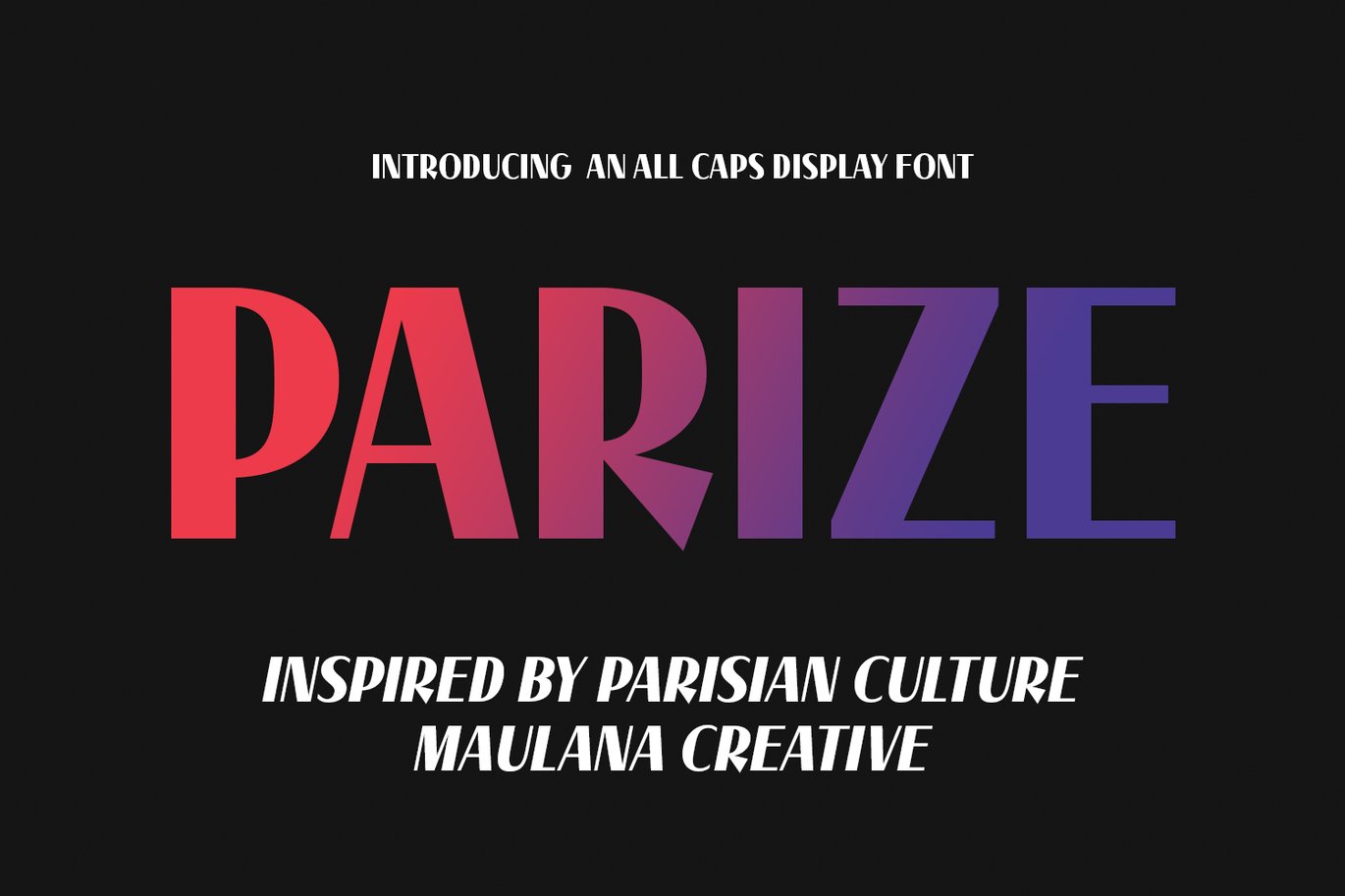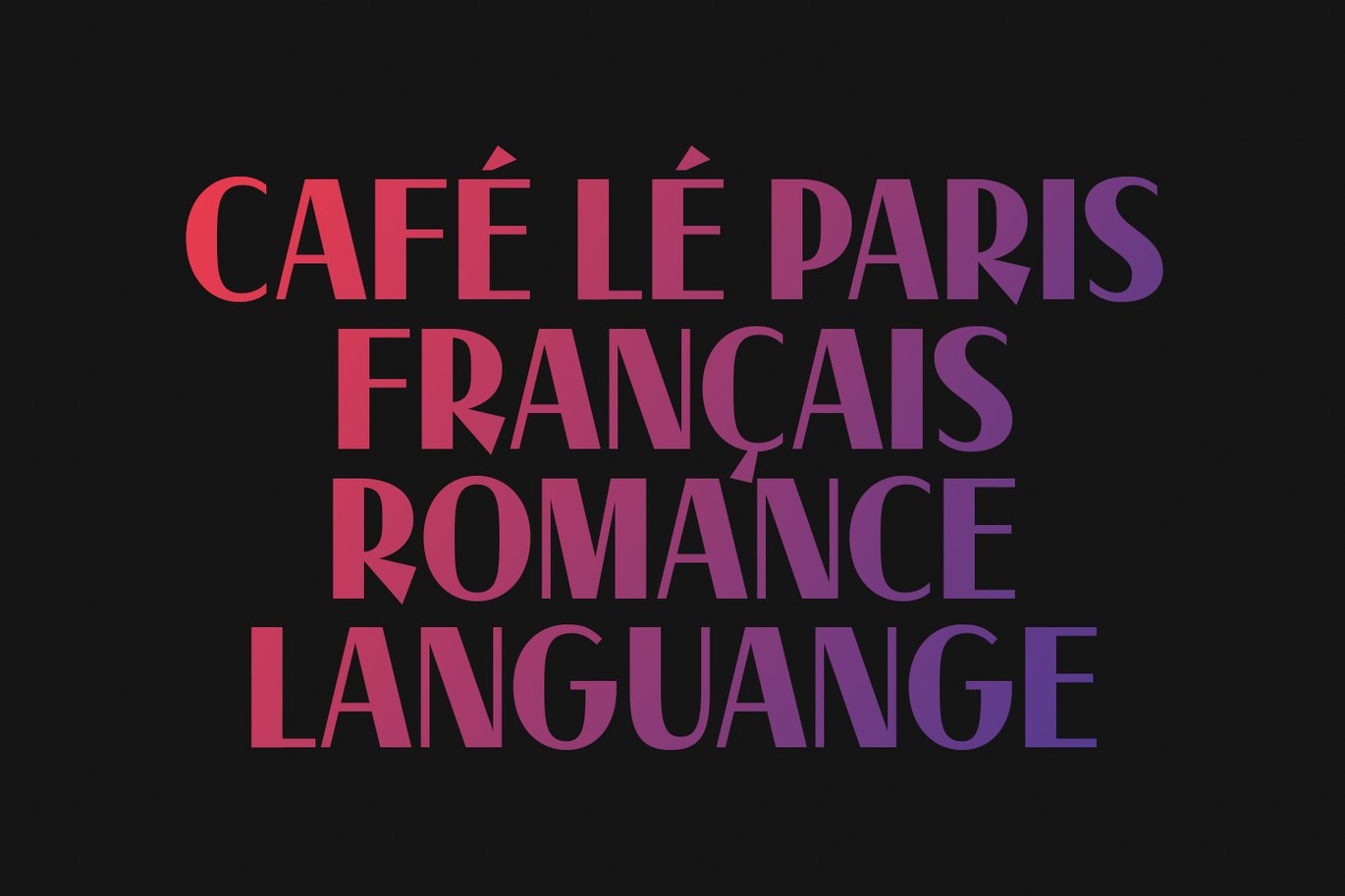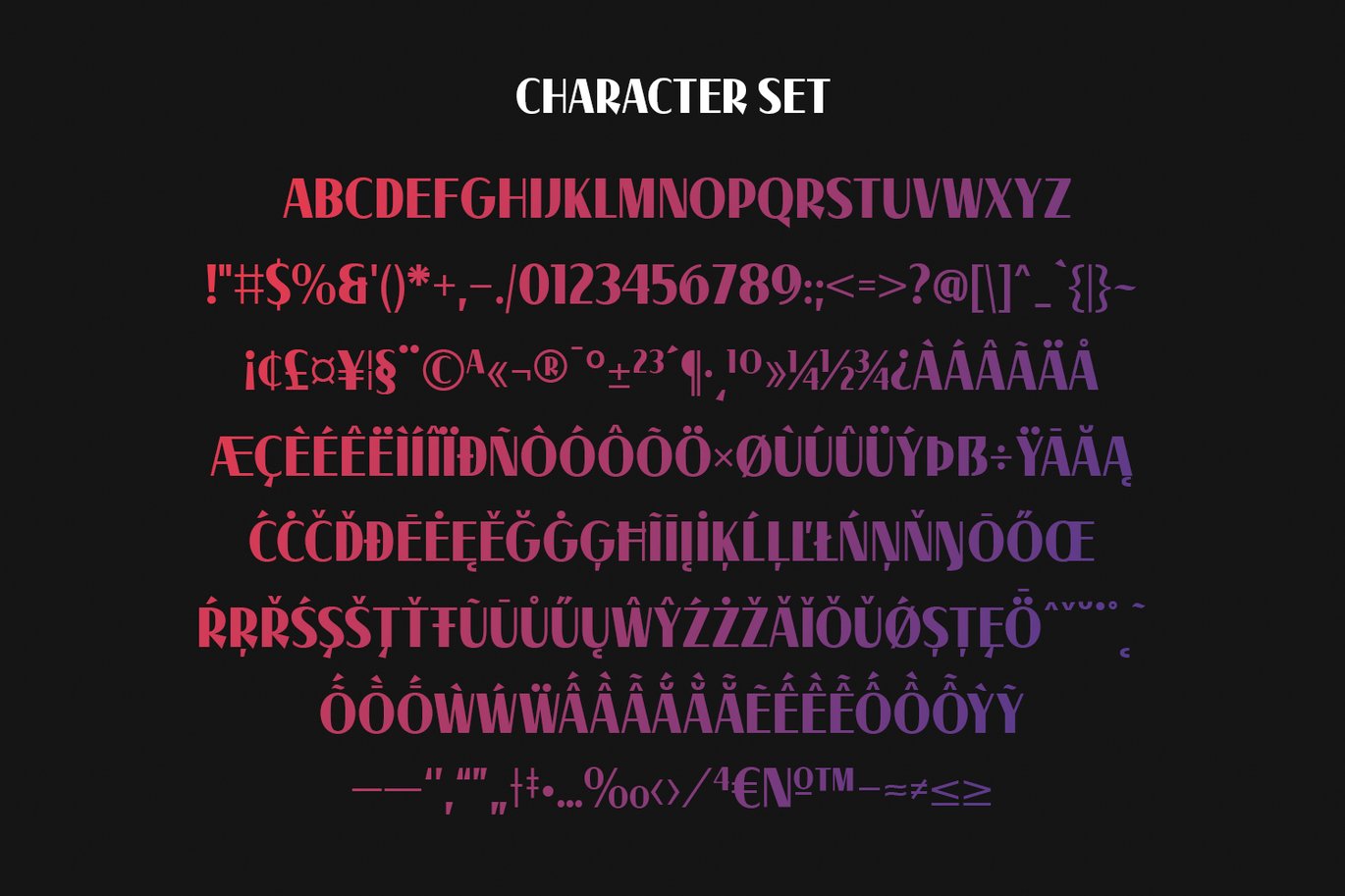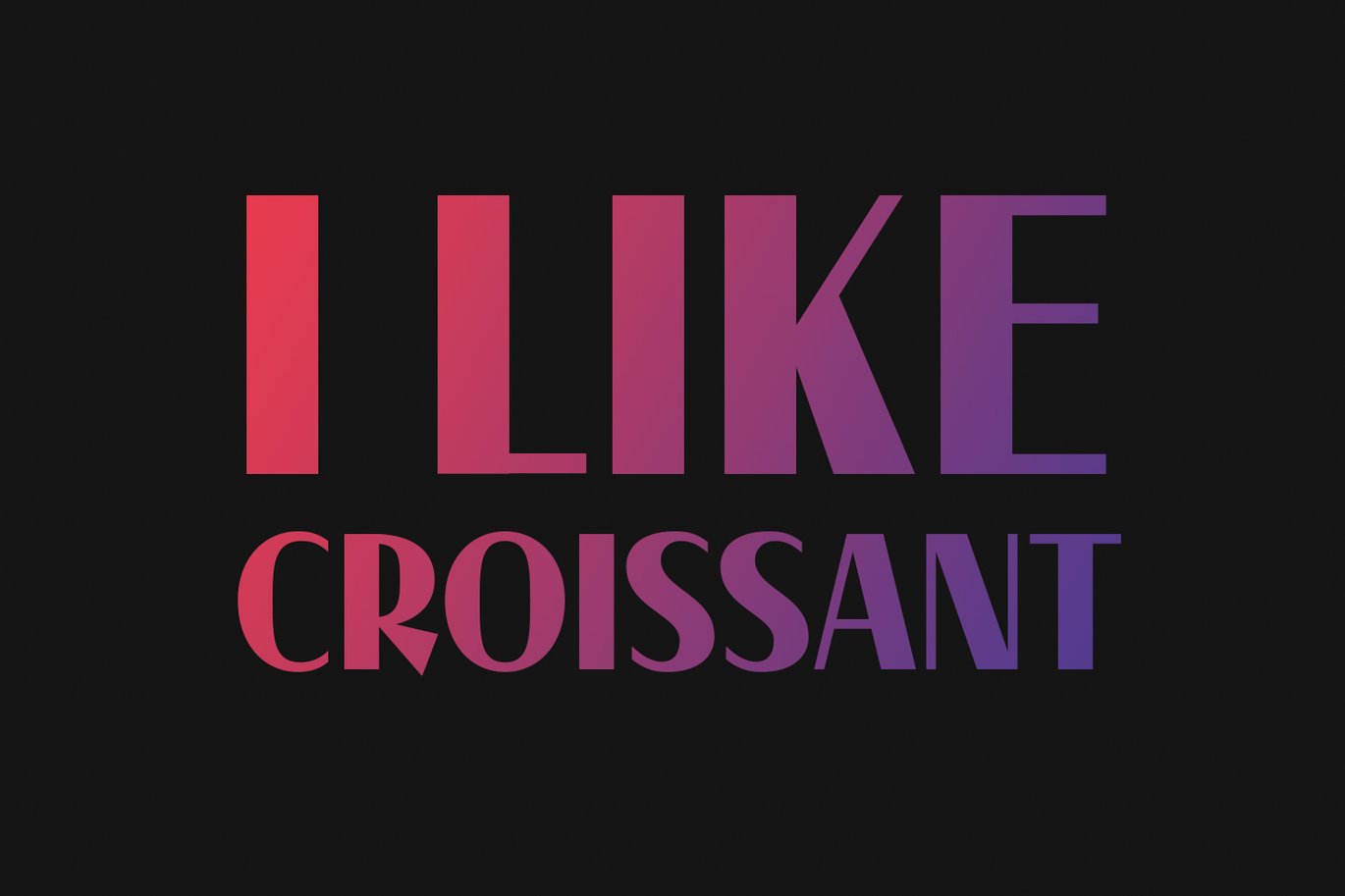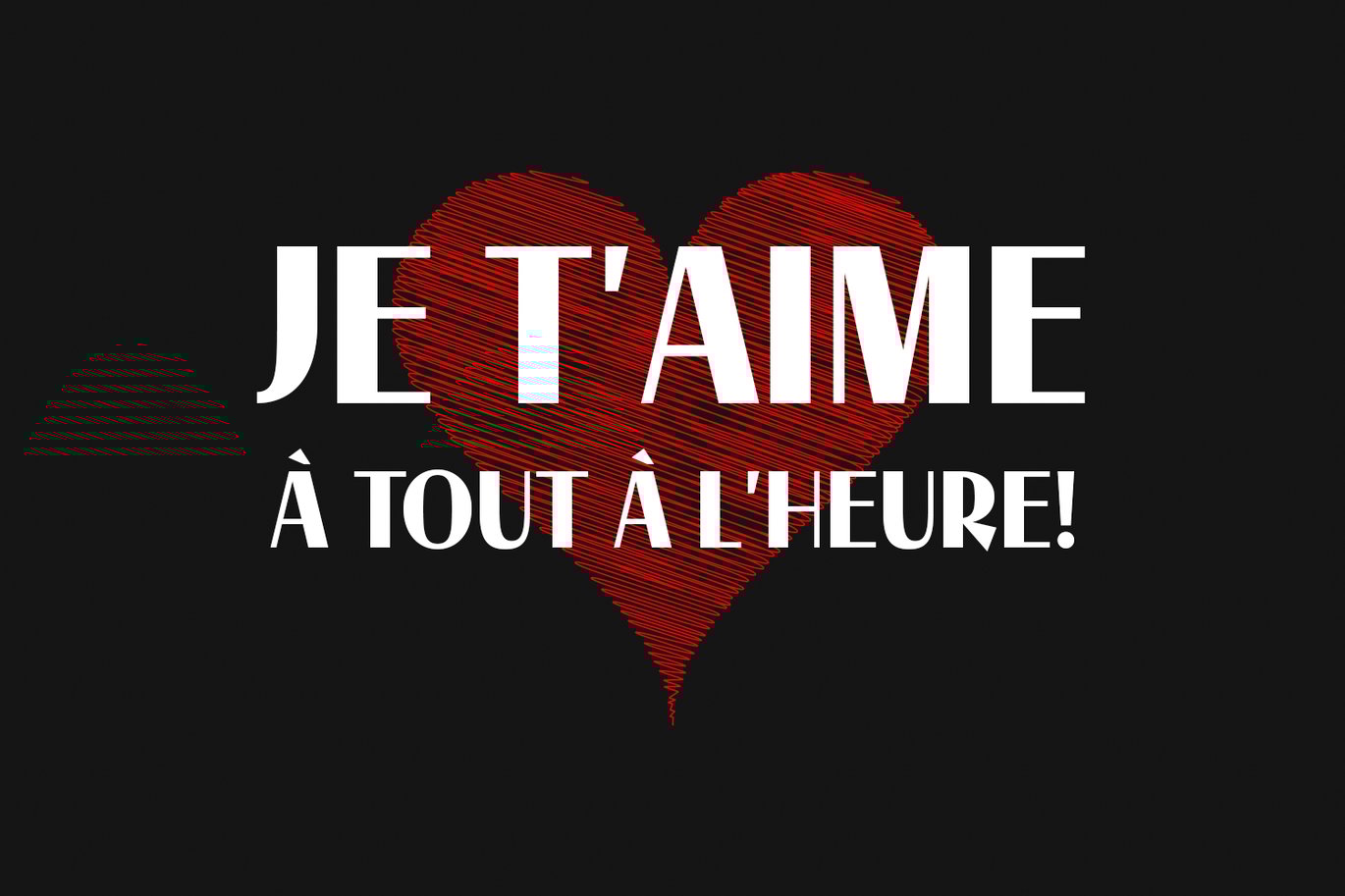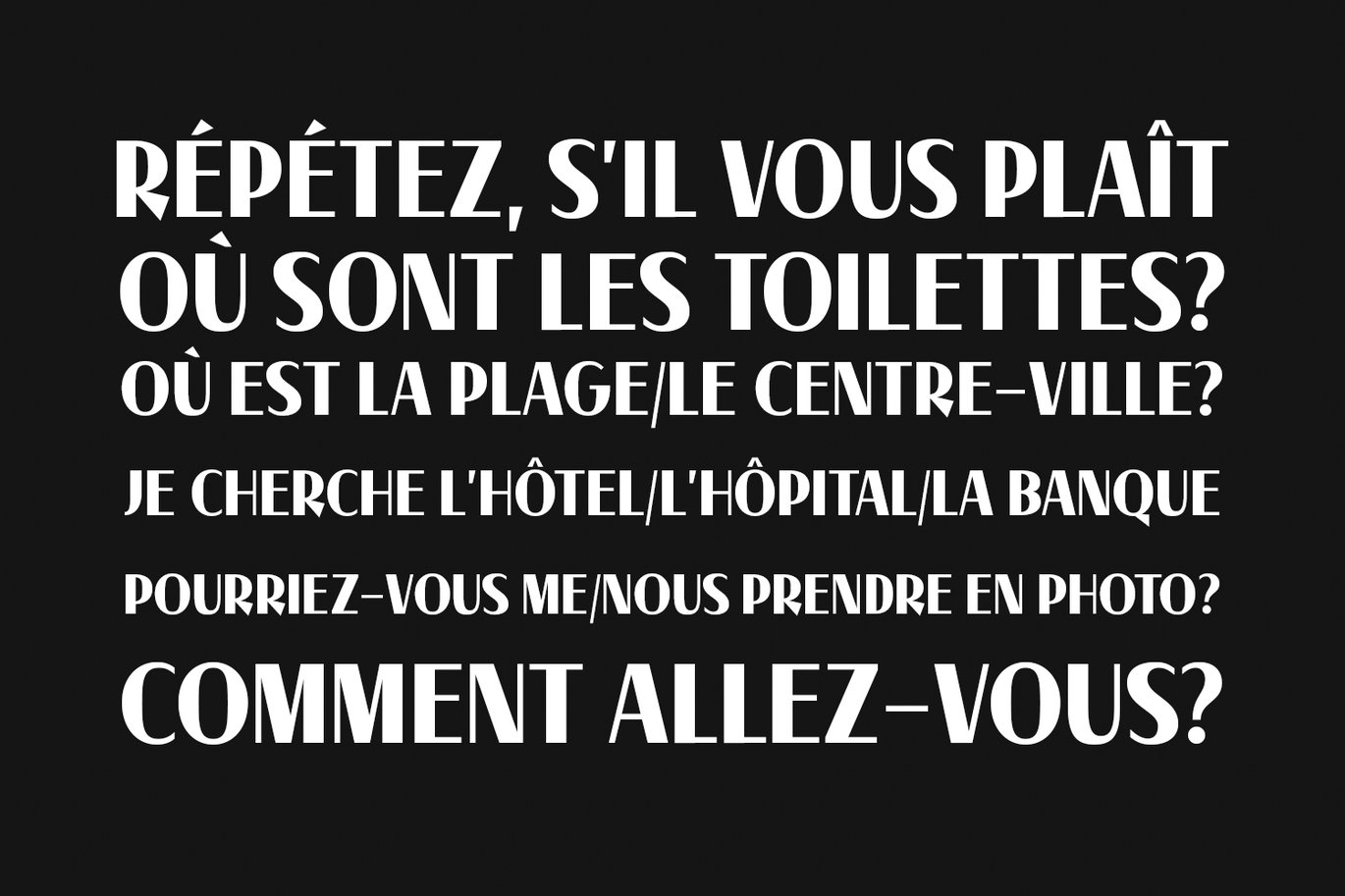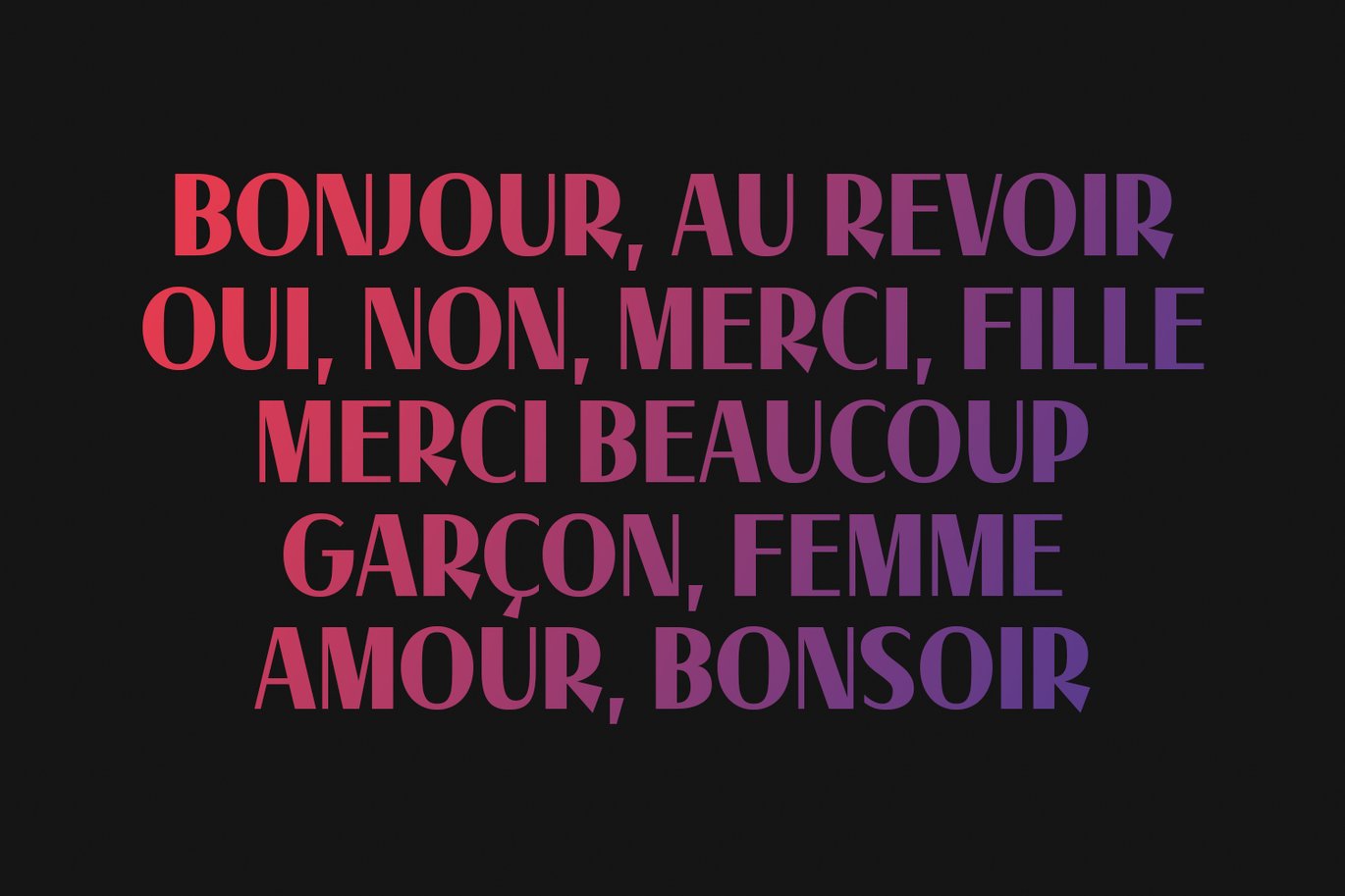
Parize Display Font
Parize is a decorative display font. Bold stroke, fun character with a bit of ligatures and alternates. To give you an extra creative work. Parize font support multilingual more than 100+ language. This font is good for logo design, Social media, Movie Titles, Books Titles, a short text even a long text letter and good for your secondary text font with script or serif. Make a stunning work with Parize font.